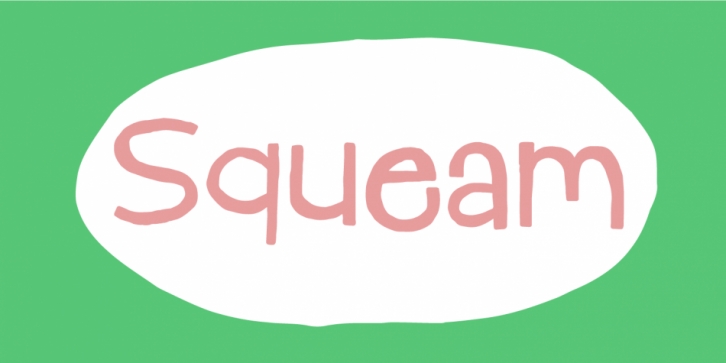
Designed by Jakob Fischer, Squeam is a hand display font family. This typeface has two styles and was published by Pizzadude.dk.
Here’s a fun font that is quirky, jumpy and uneven. It’s also unpredictable, but not more than your text will be clear and legible…but in a fun way! :)
I’ve added several lowercase versions that automatically cycles as you type. A great way to make your text random and lively